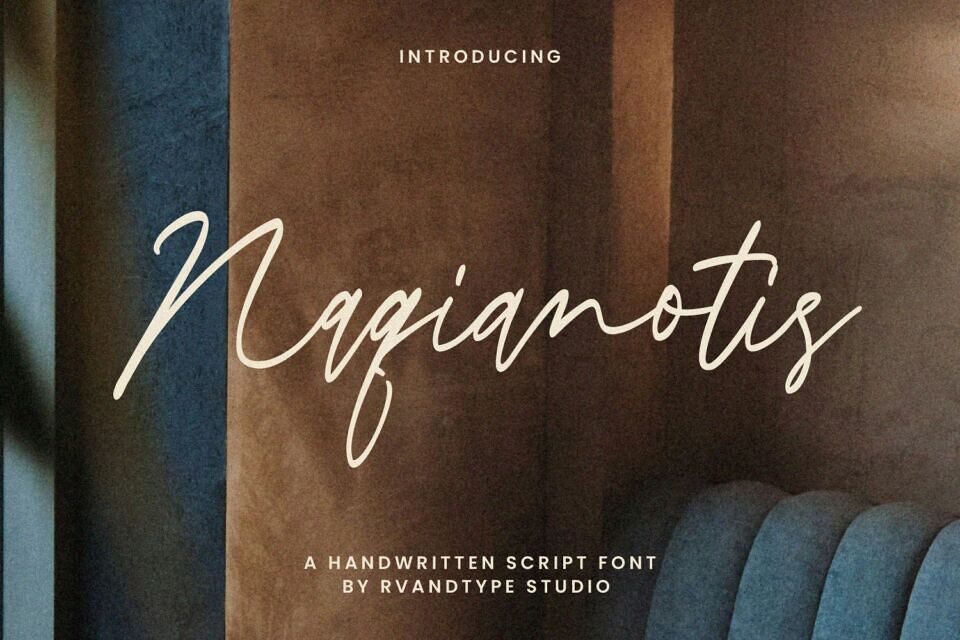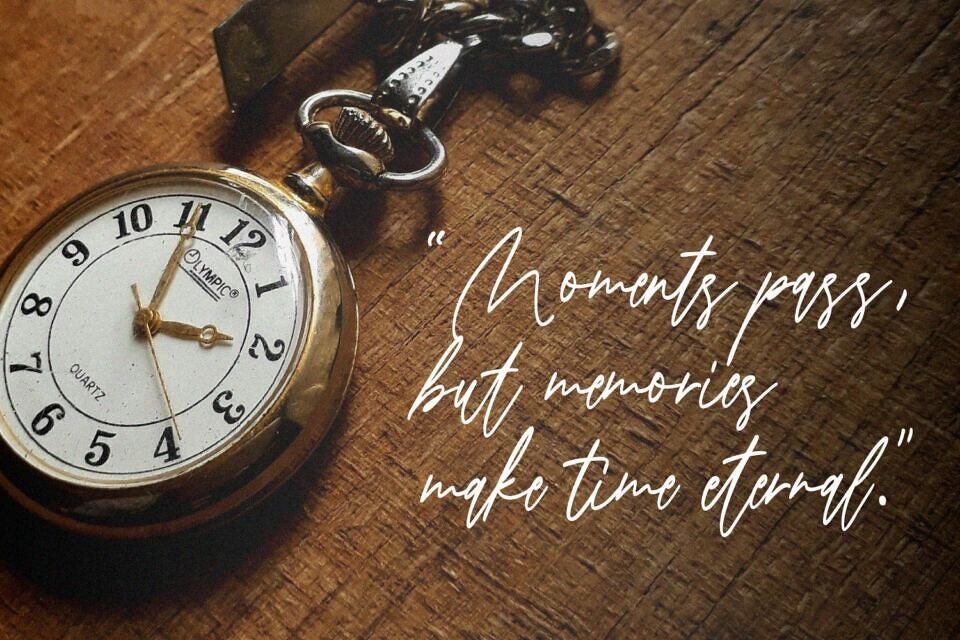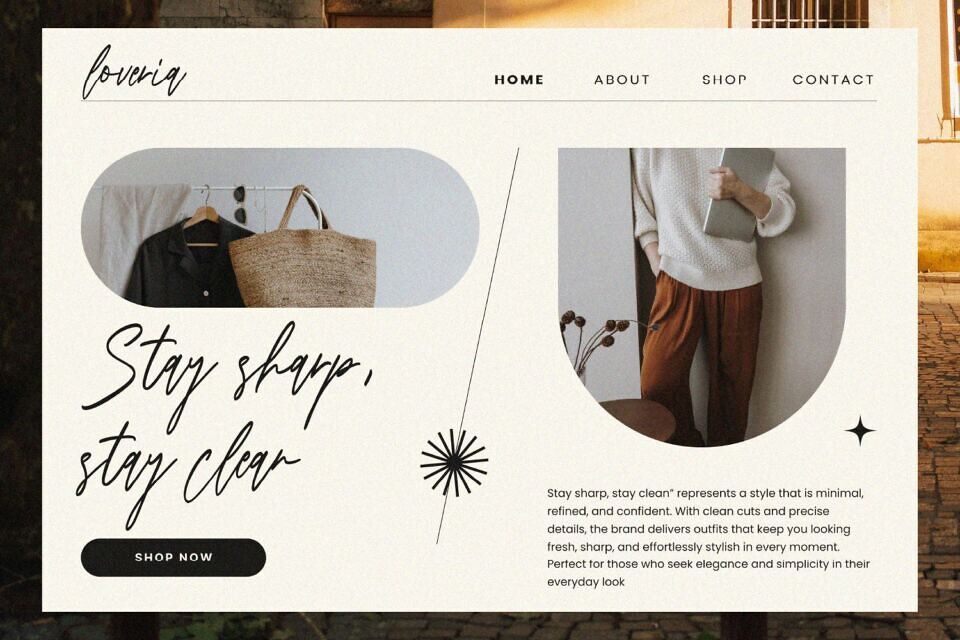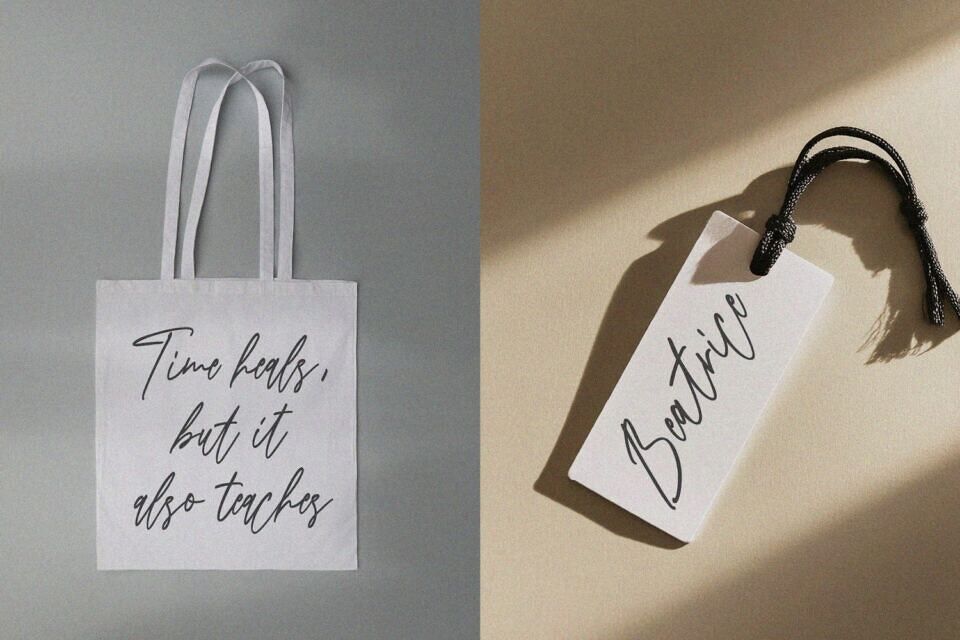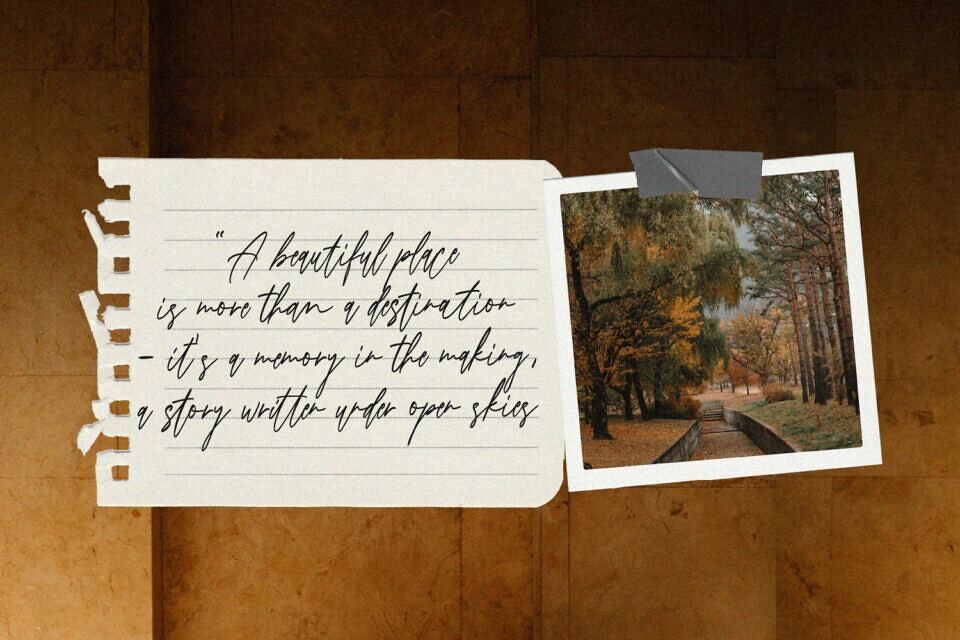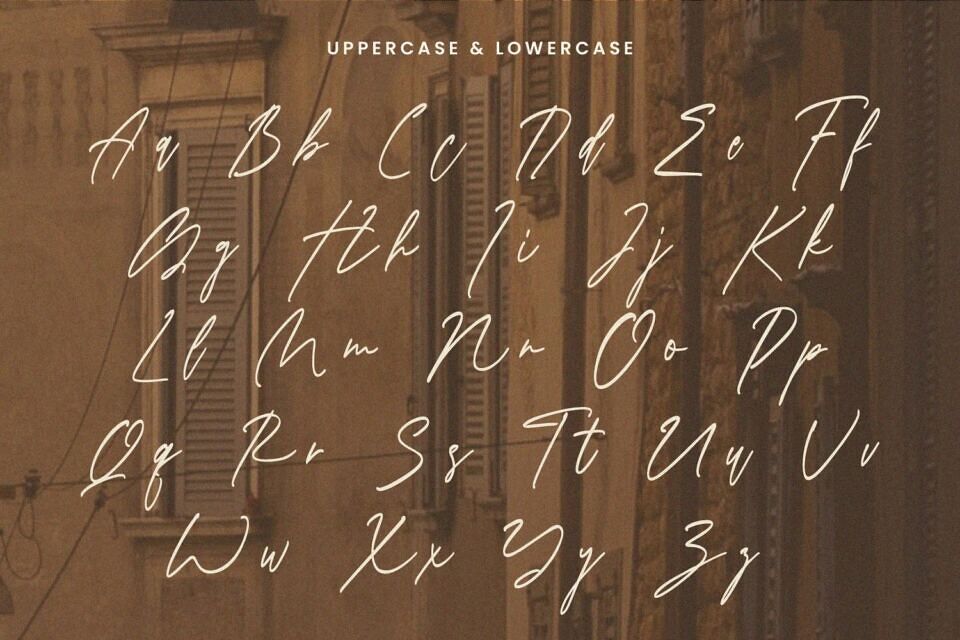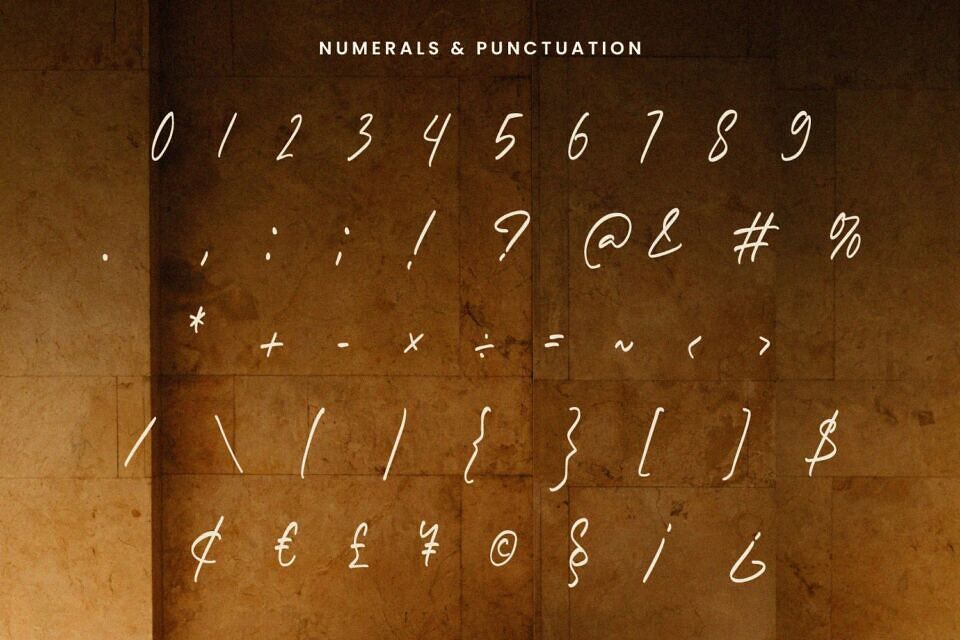
Crafted by Rvandtype Studio, Naqianotis is an elegant handwritten script font that blends natural handwriting charm with refined sophistication. Its smooth, flowing strokes create a warm and graceful appearance, making it perfect for personal projects, branding, invitations, social media graphics, and editorial design.
With a balance of delicate curves and confident letterforms, Naqianotis adds a touch of elegance and personality to any design, elevating both modern and classic layouts with timeless style.